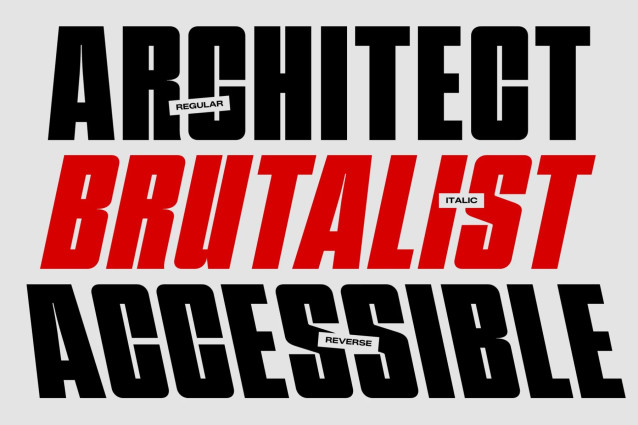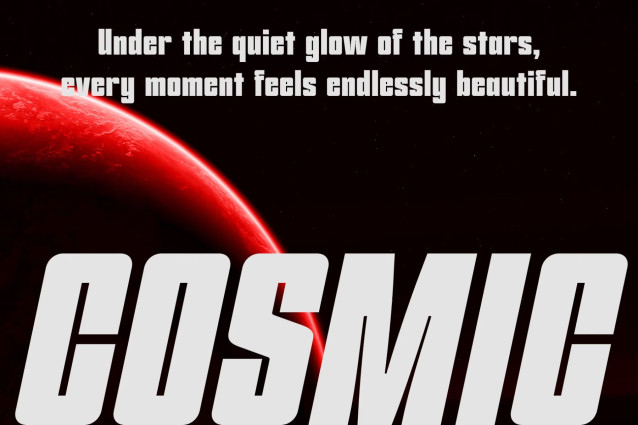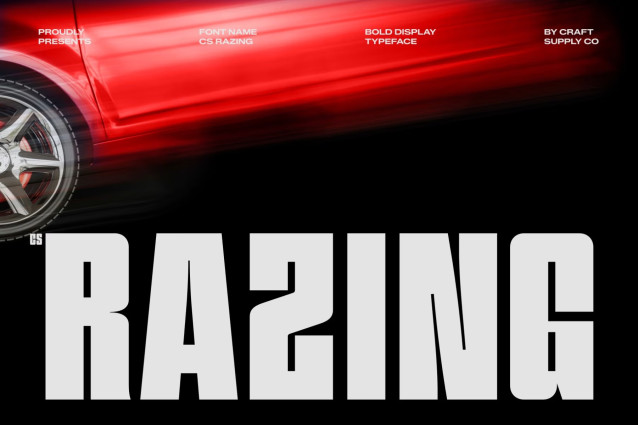
CS Razing – Bold Display Font
CS Razing – Bold Industrial Display Sans Serif: Where Vintage Strength Meets Modern Precision
Geometric Construction with Commanding Presence
This is a bold display sans serif designed with a powerful industrial character. Its clean geometric construction creates a commanding visual presence, while the balanced proportions and bold forms ensure exceptional readability and impact. Every letter is crafted to project confidence, making the font ideal for attention-grabbing display typography.
Squared Terminals with Rugged Modern Style
This font delivers a clean yet rugged aesthetic that feels both engineered and contemporary. The consistent stroke weight reinforces its bold personality, while the squared details contribute to a structured, industrial appearance that is unmistakably strong and visually distinctive.
Vintage Industrial Inspiration with Contemporary Edge
This font captures the timeless strength of traditional display lettering while introducing a refined modern finish. This combination of nostalgic influence and contemporary precision creates a versatile typeface that feels authentic, bold, and relevant across a wide range of creative applications.